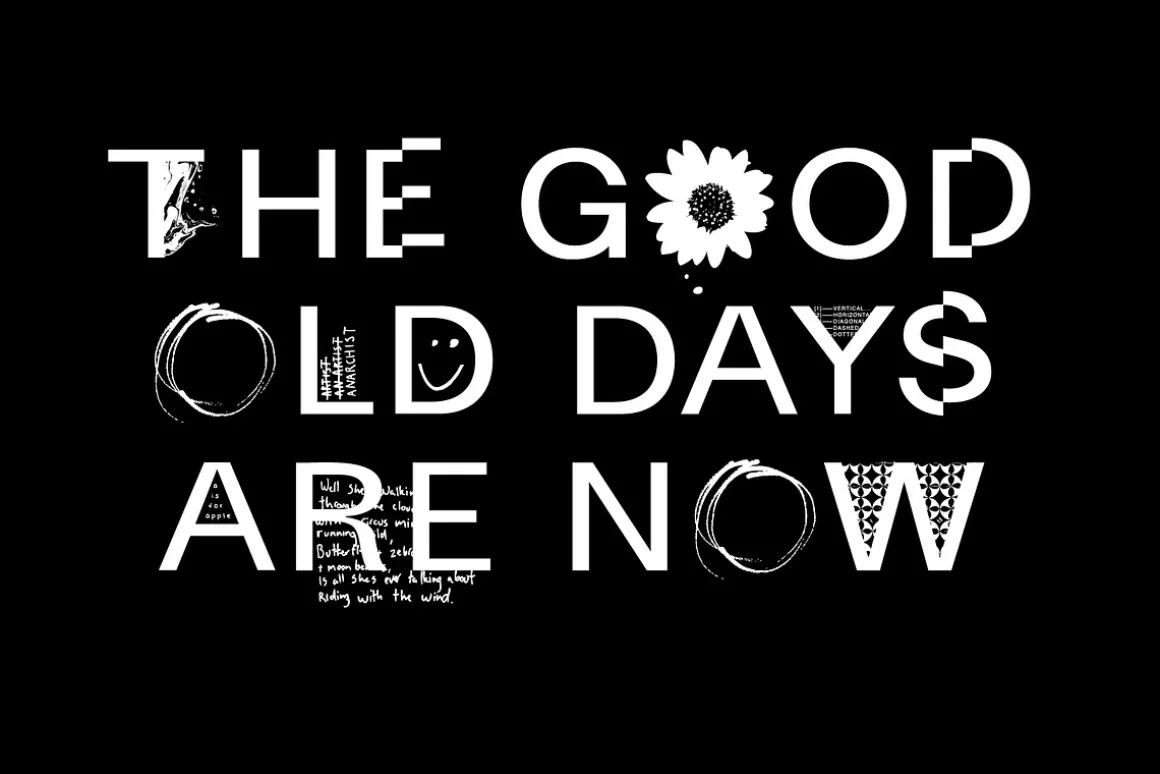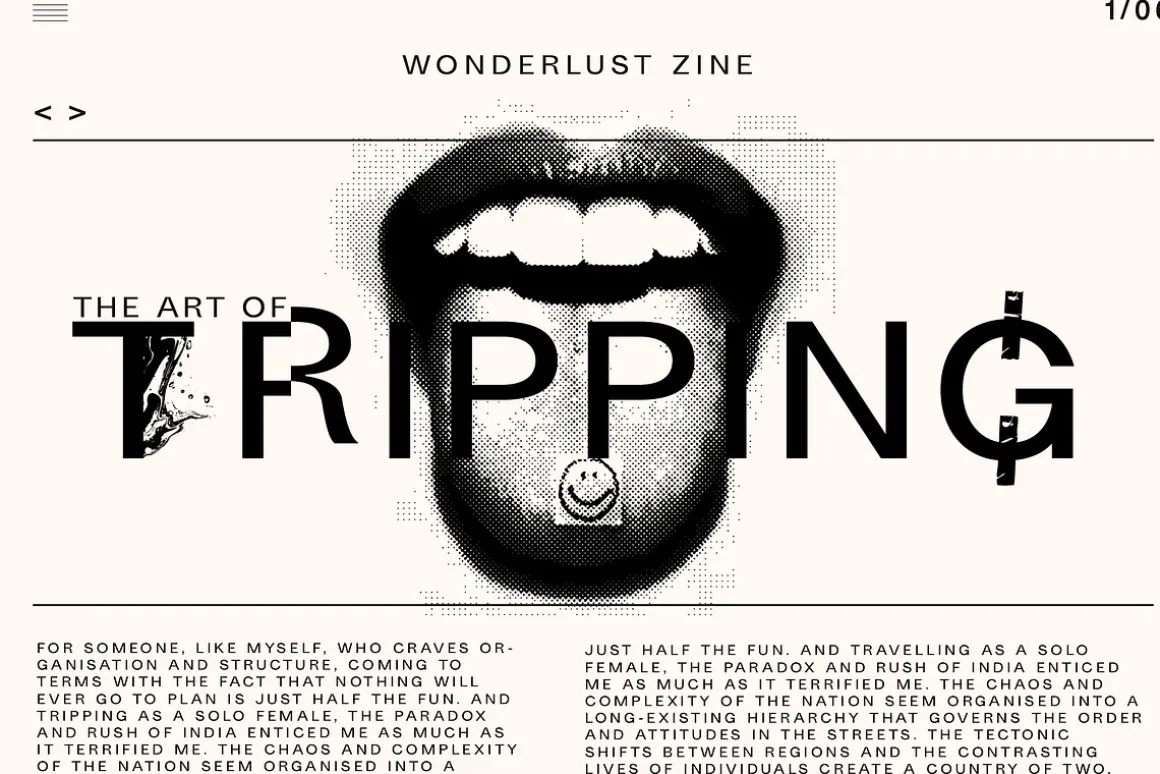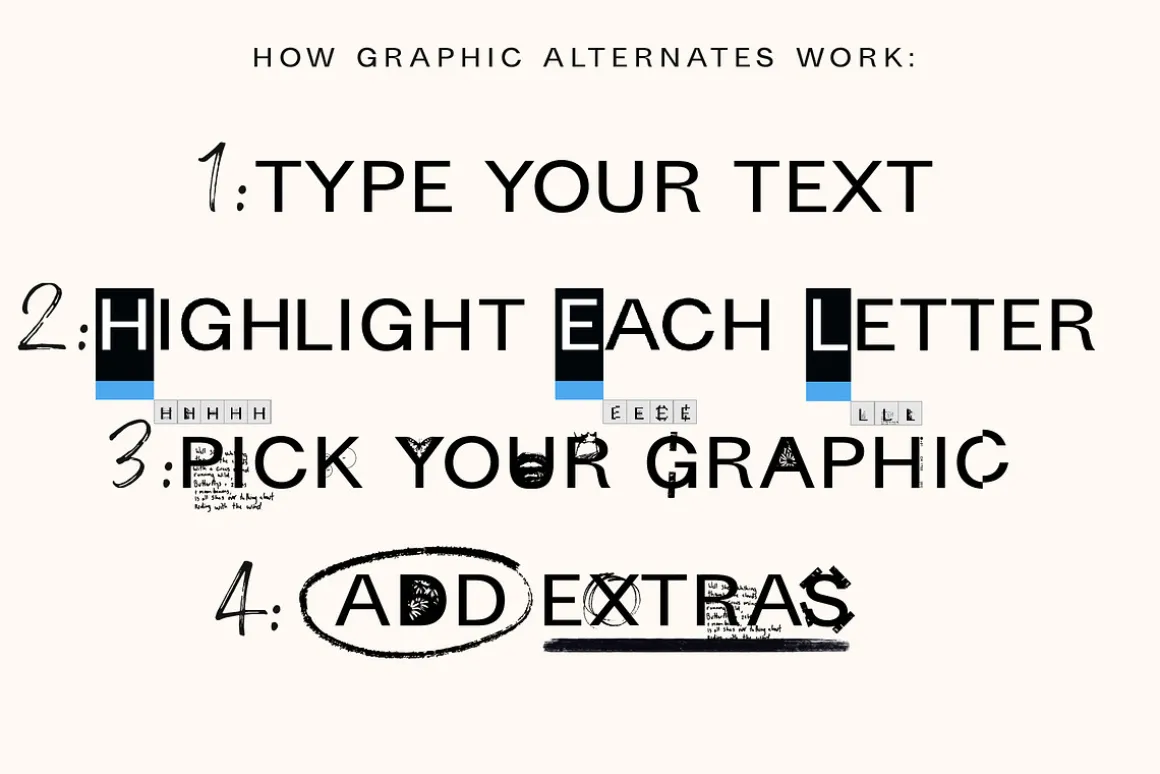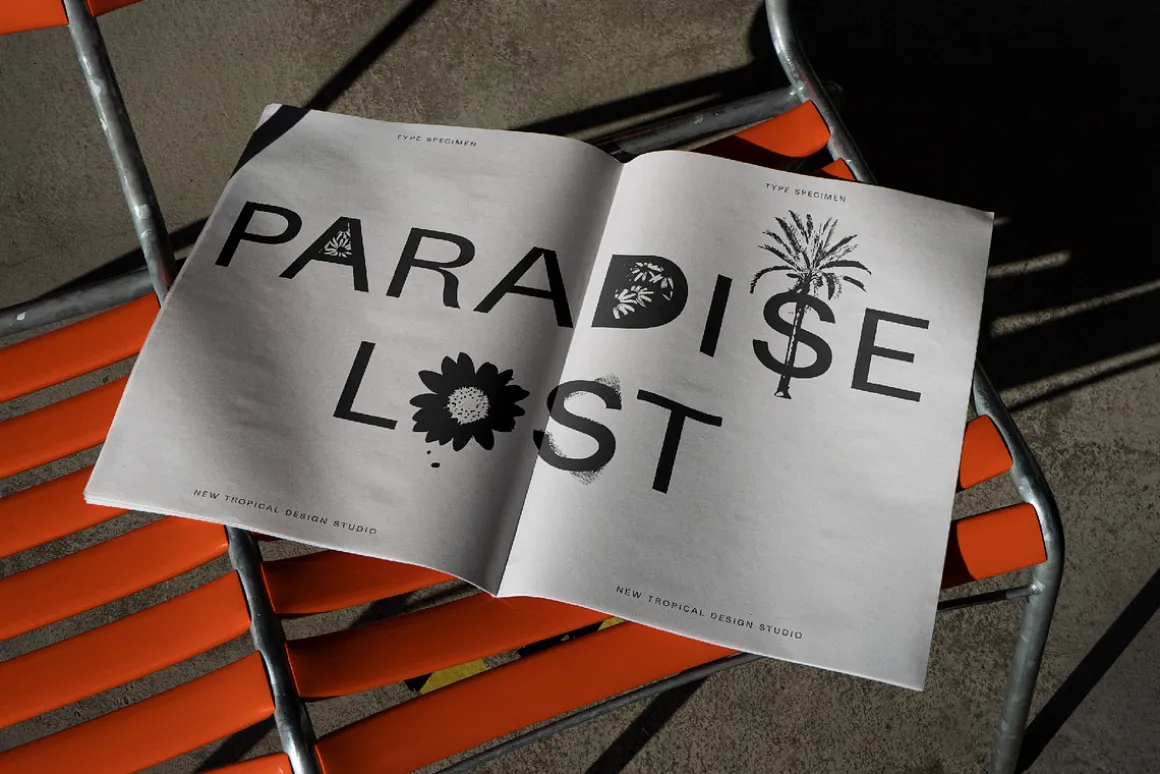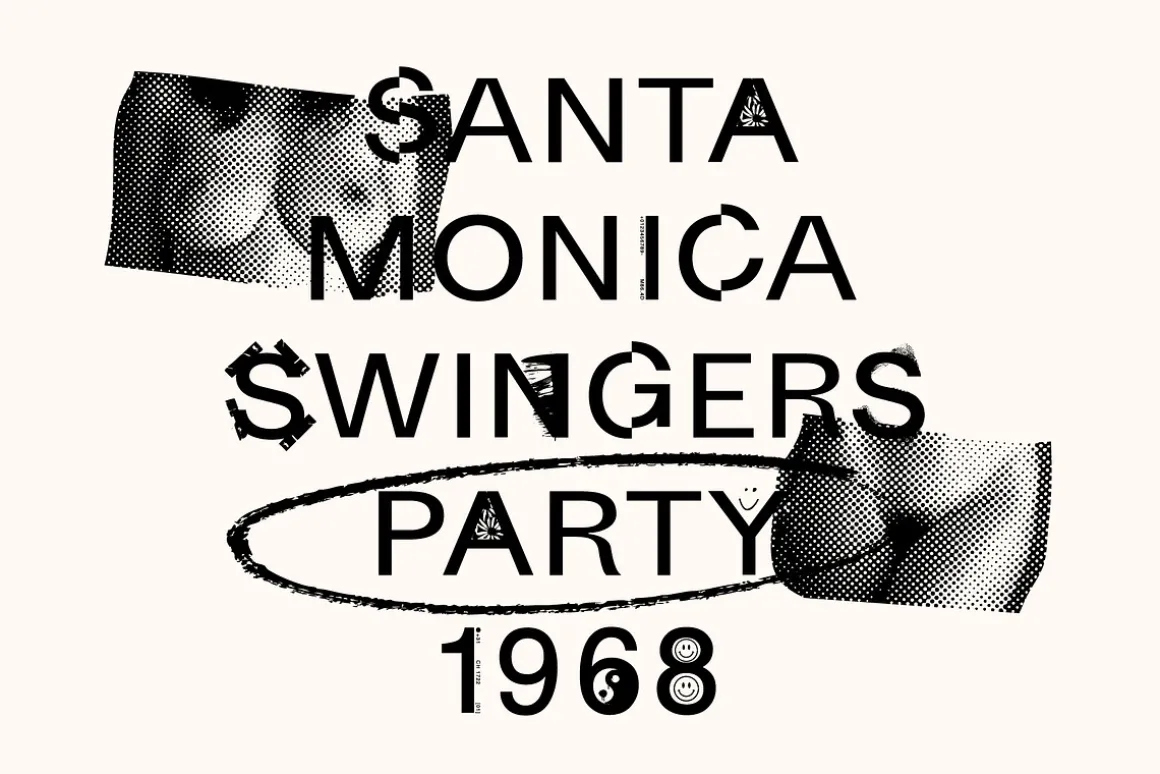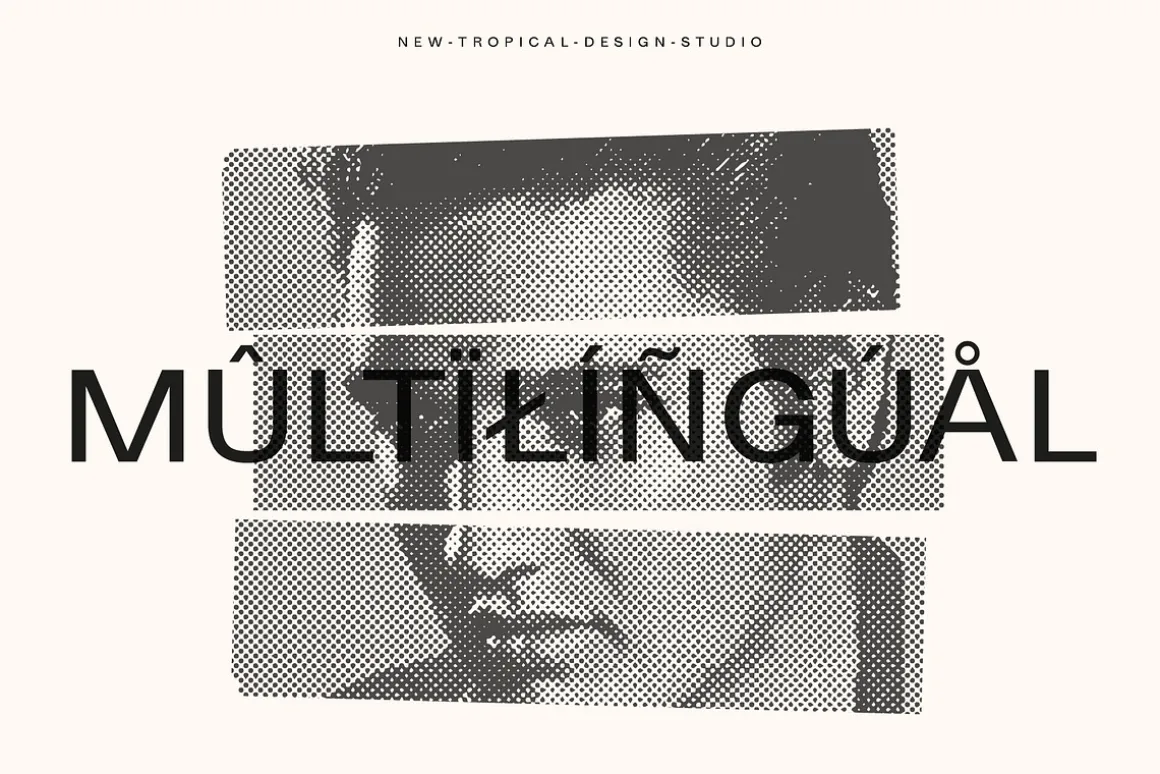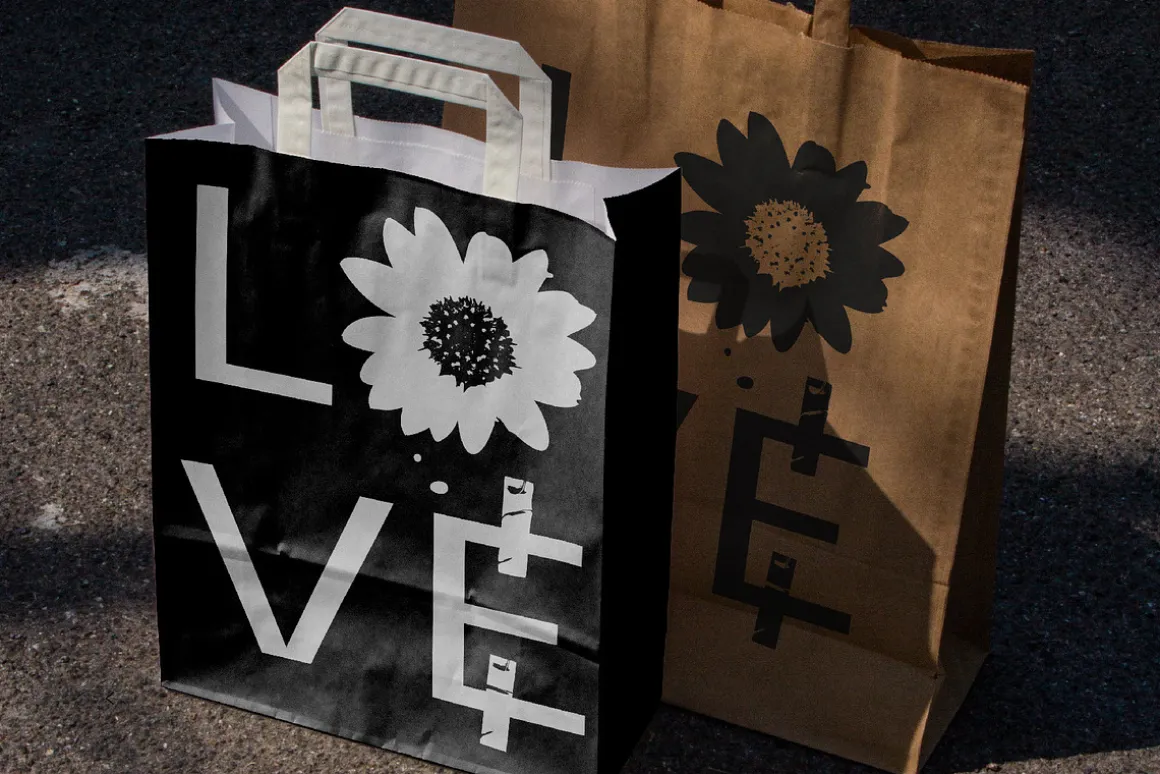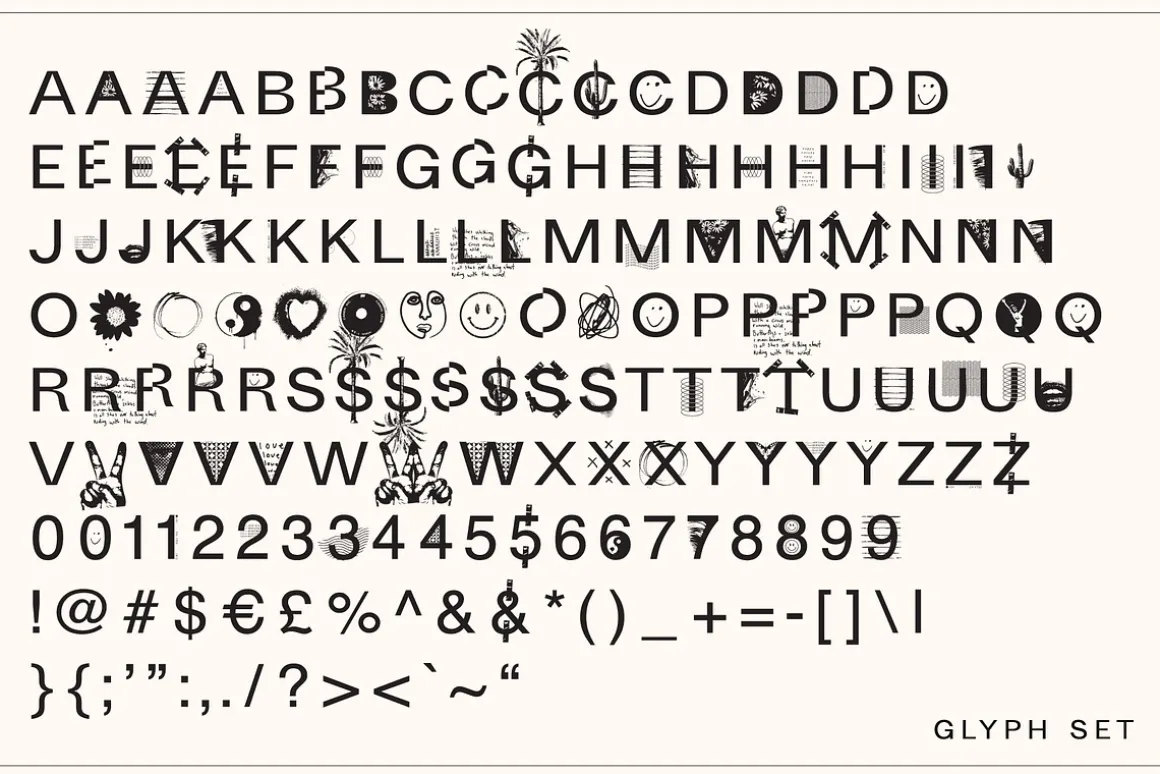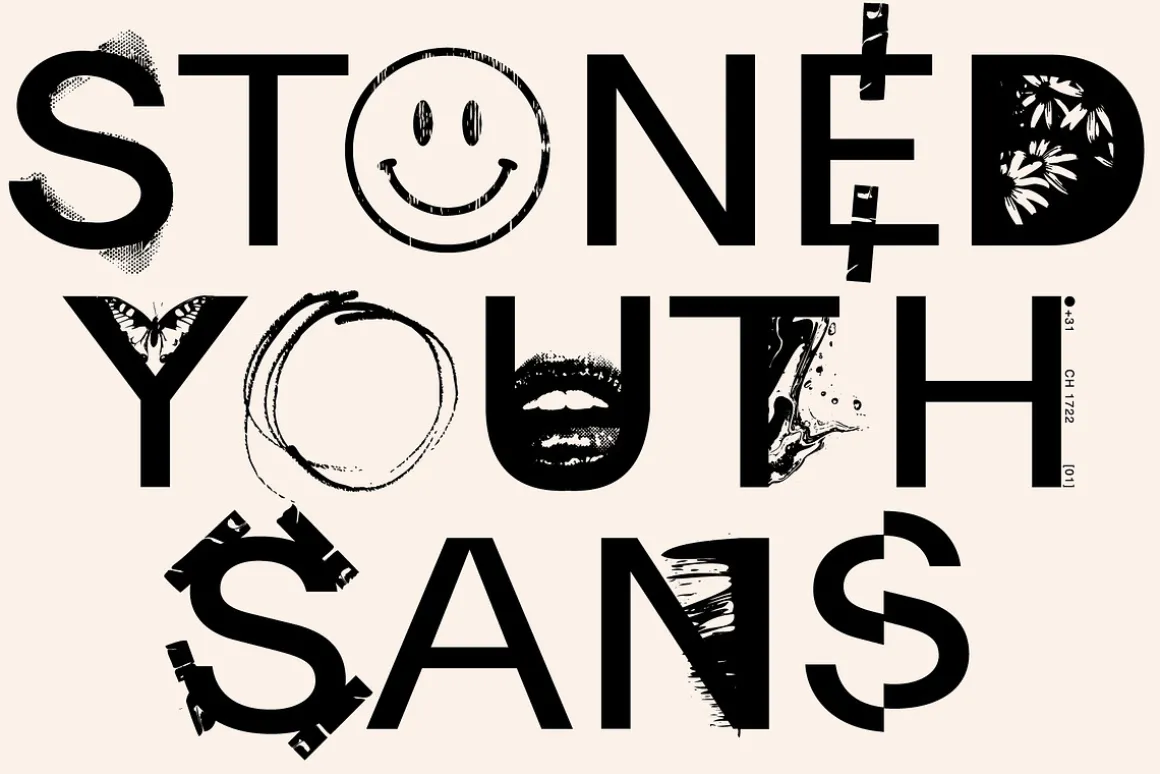
Stoned Youth Graphic Font is a one of kind typeface with built in graphics. Just type your text and add intertwined graphic letters with a single click. It’s never been easier to get unique and stylish typography with bonus graphics included.
Full upper, numbers, punctuation and graphic letters
Multilingual support ( including polish )